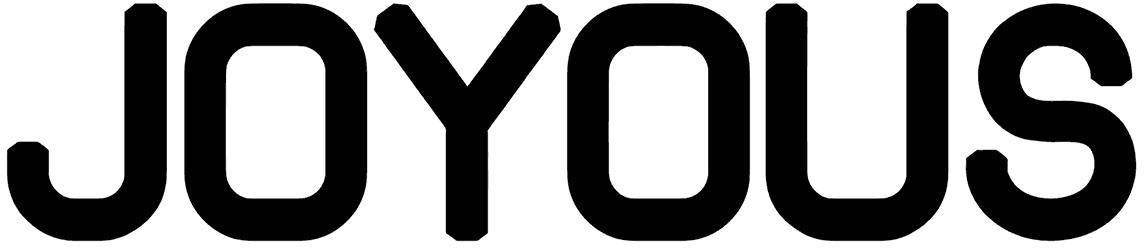
Joyous Font
Joyous is a bold sans-serif font with a squarish style that makes it perfect for catching people’s attention. It also has a unique and simple design that makes it stand out and works well for headings, banners, poster designs, and flyers.